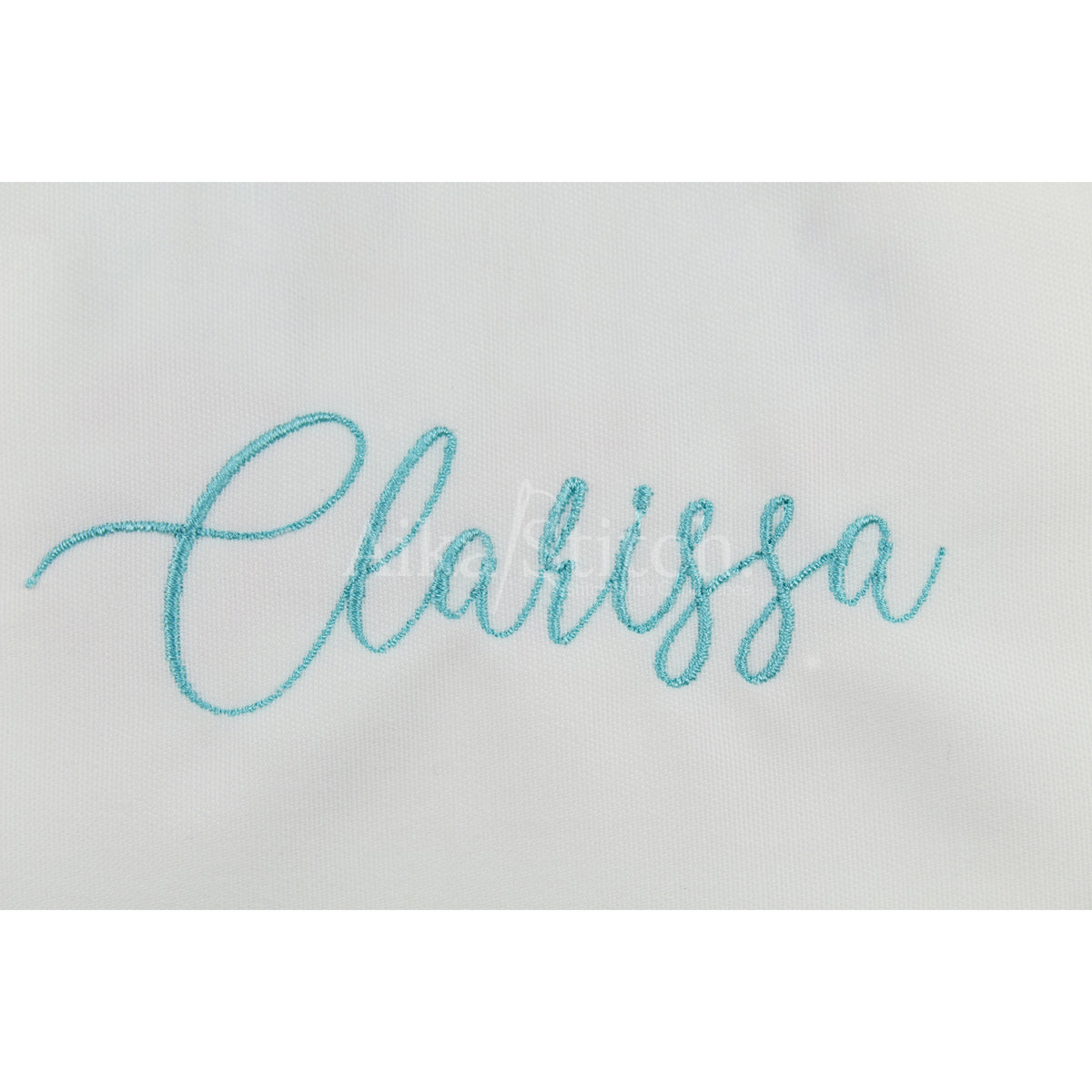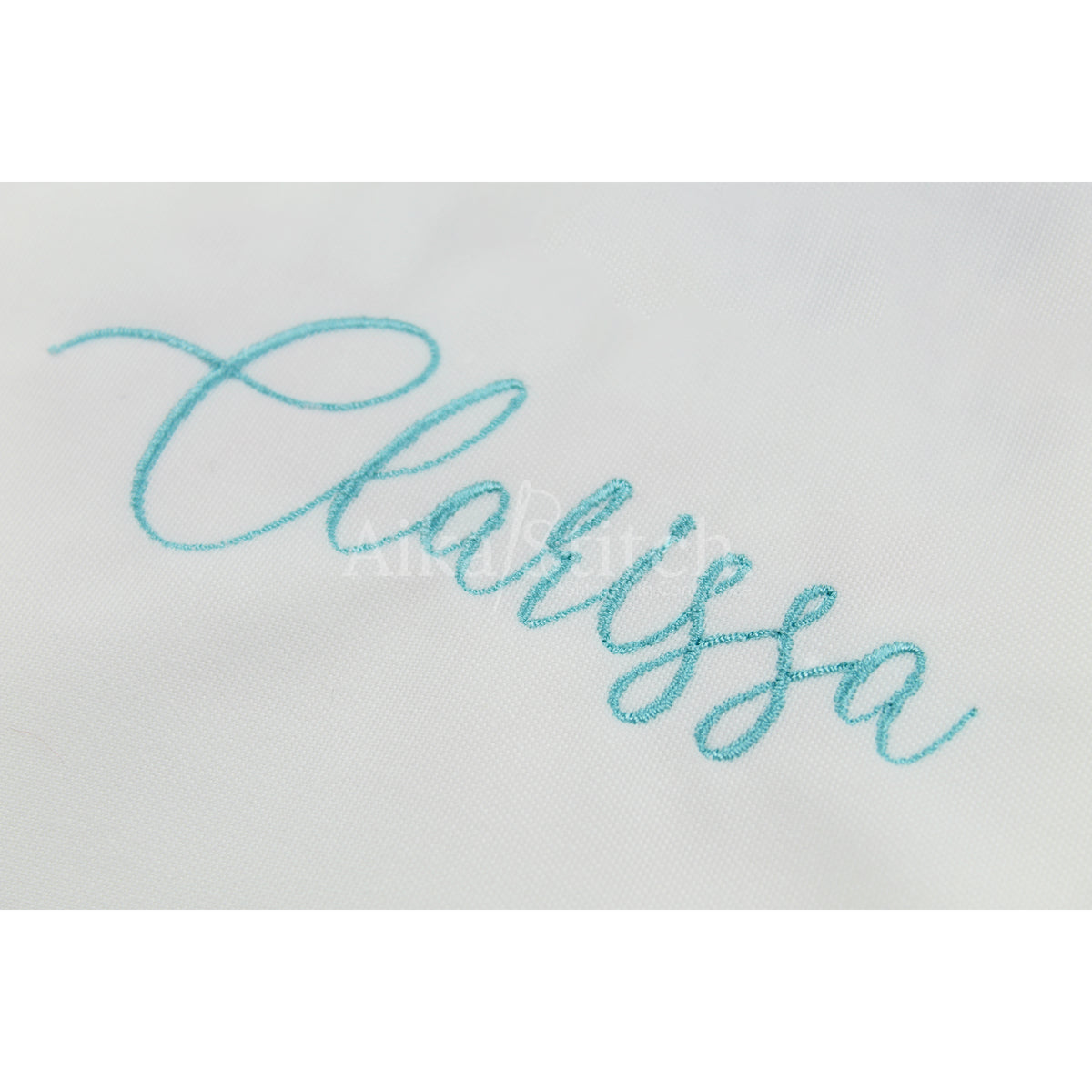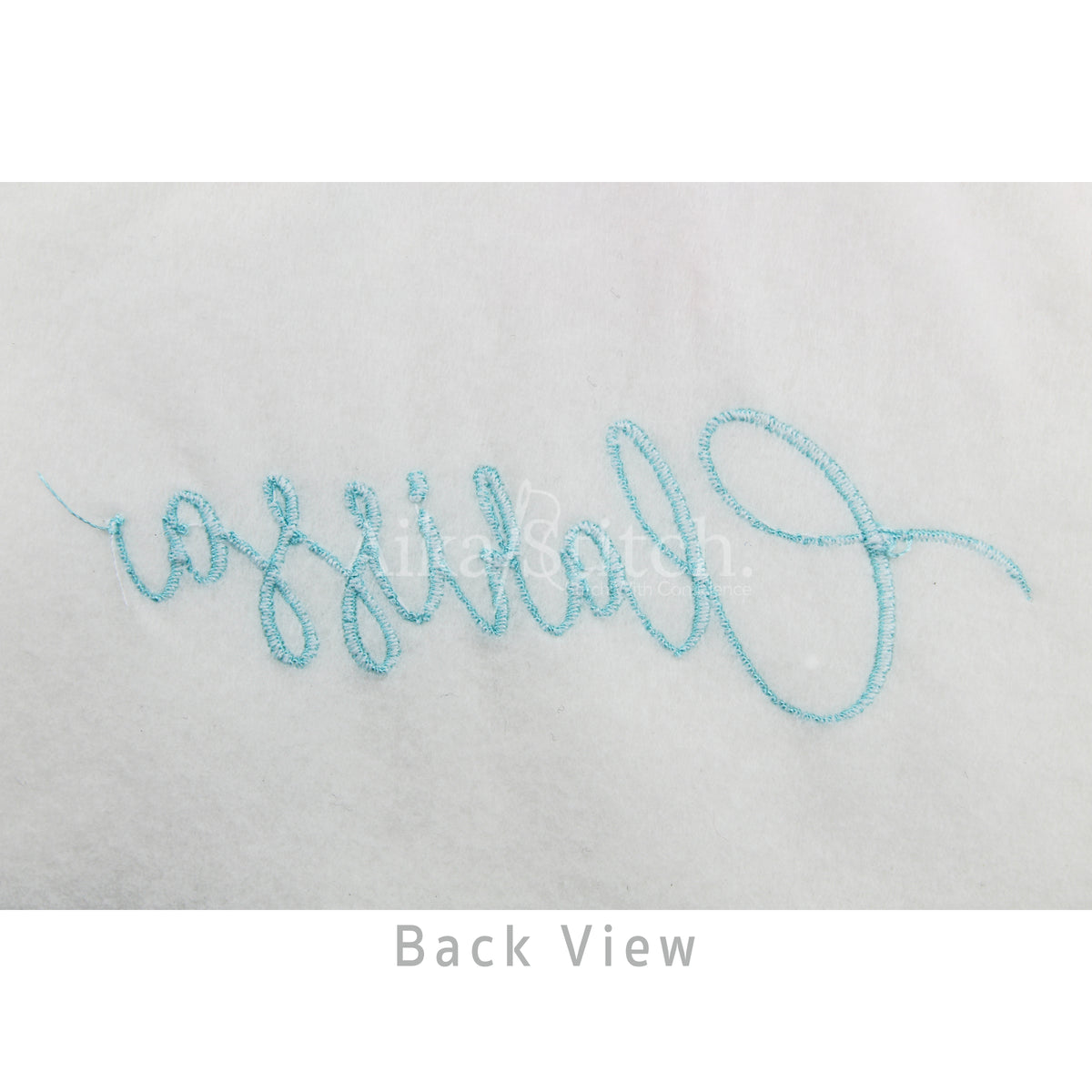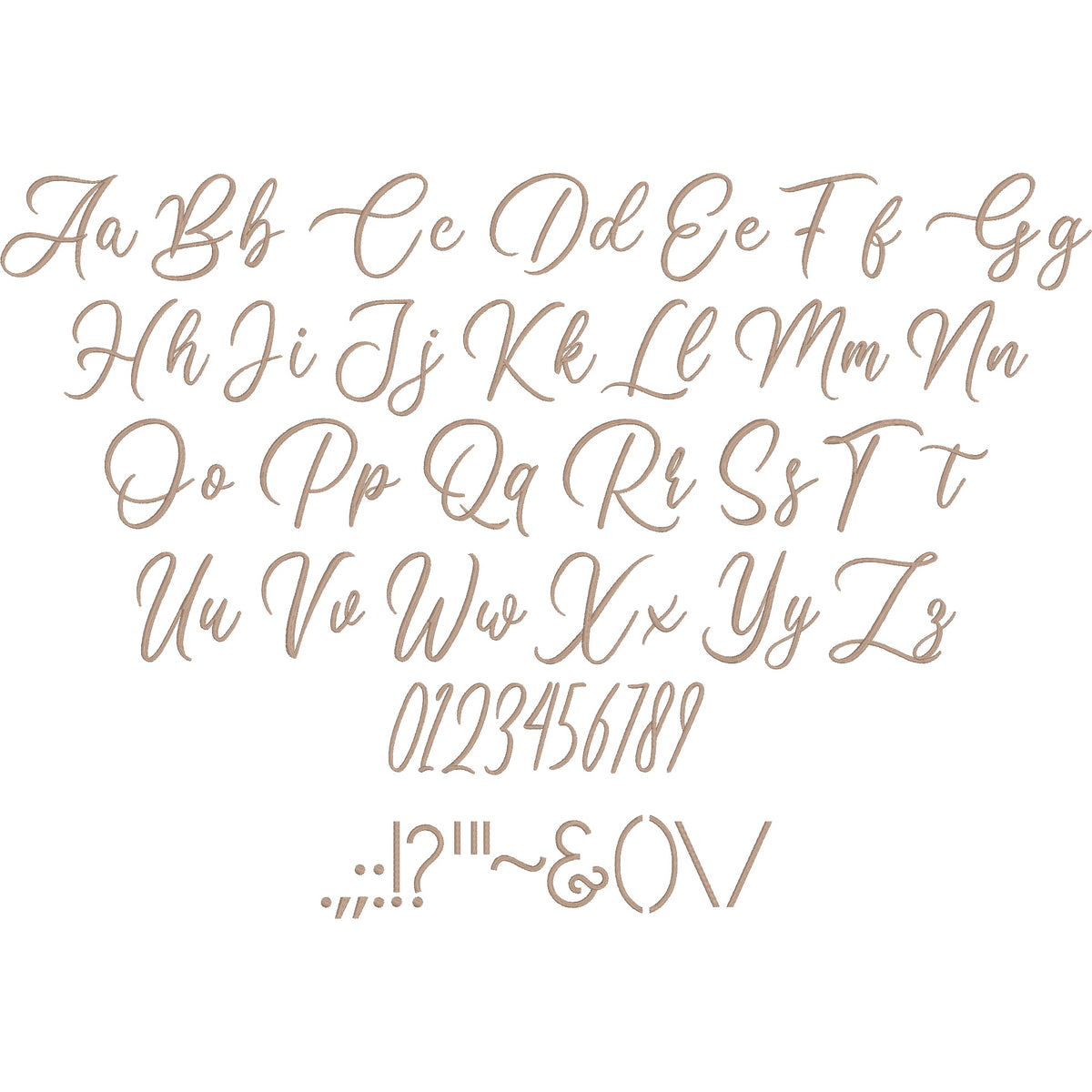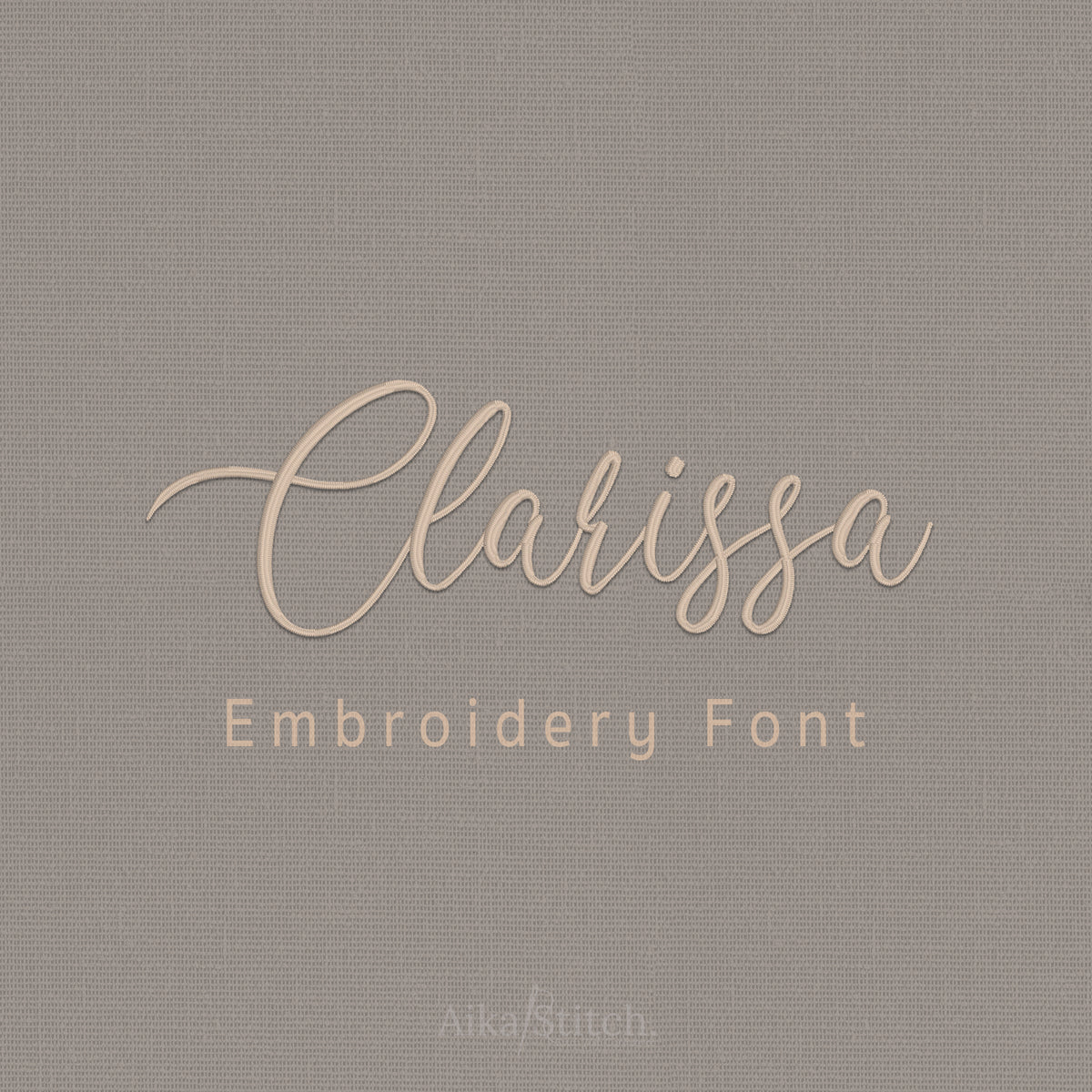
Clarissa Script Handwritten Embroidery Font | Native BX Included
Clarissa is a Script Handwritten machine embroidery font featuring beautiful satin stitch lettering. Perfect for shirts, towels, hats, baby gifts, monograms, and small business embroidery projects.